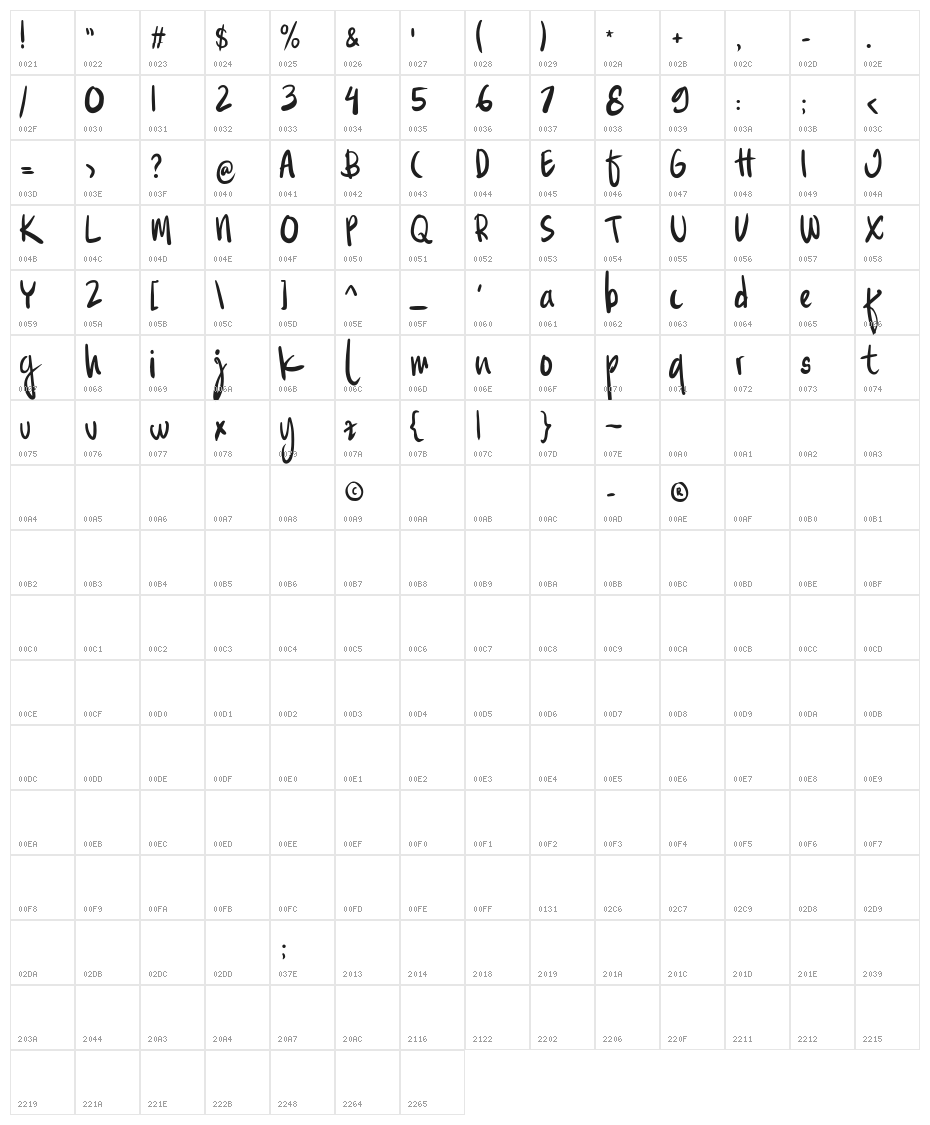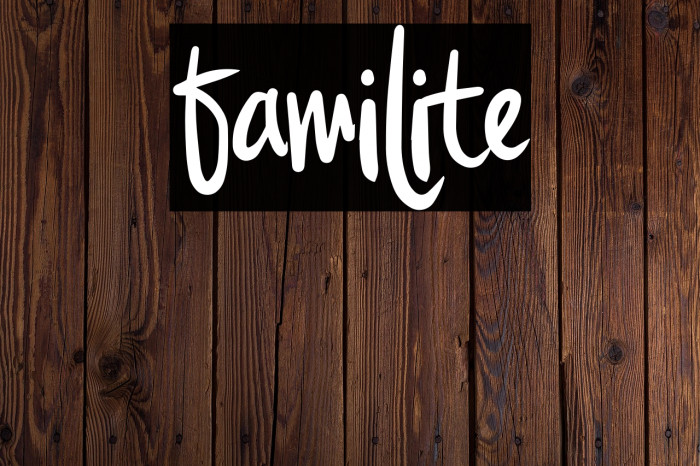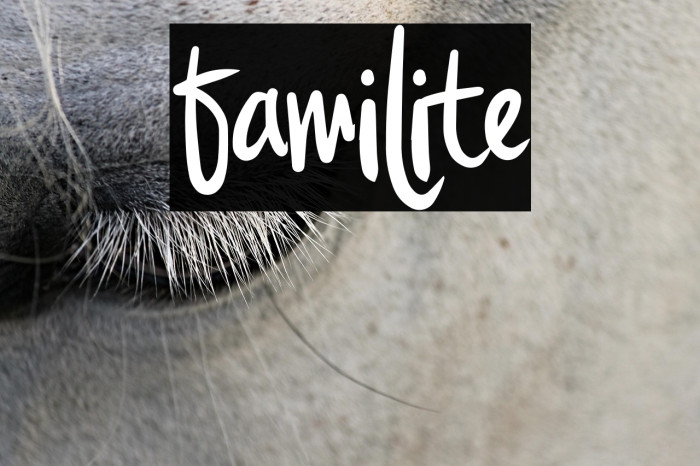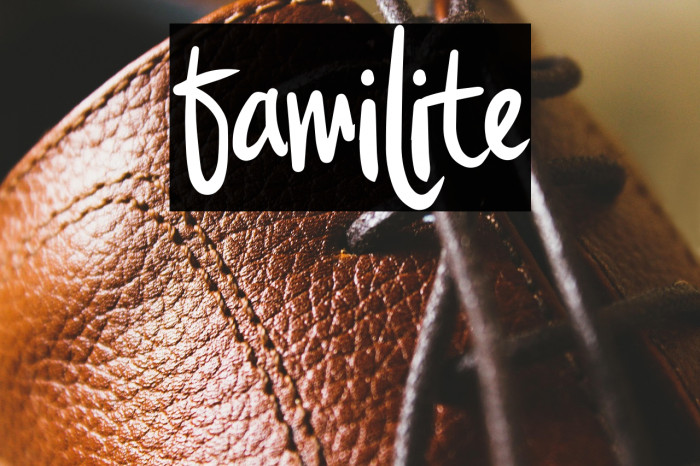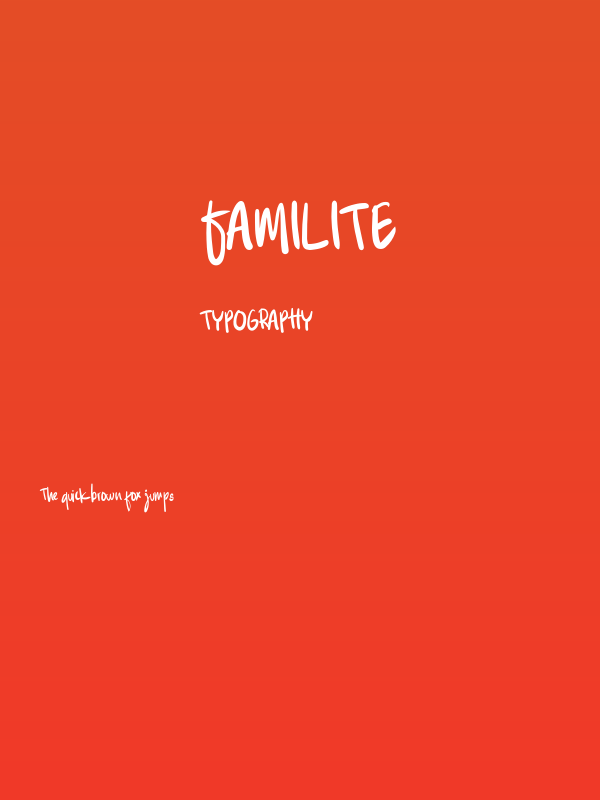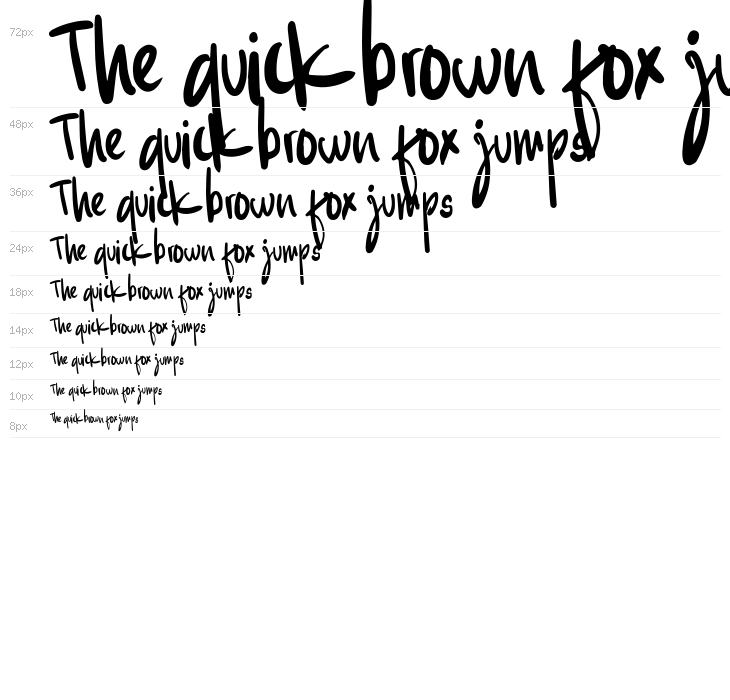
Familite Font
Familite Description
This font exudes a playful and casual handwritten style, characterized by its bold and slightly irregular strokes. The letters have a lively and energetic appearance, with a natural flow that mimics the spontaneity of handwriting. The uppercase and lowercase letters maintain a consistent style, with rounded edges and a slight slant, adding to the informal and approachable feel. The numerals and special characters are equally expressive, ensuring a cohesive look across all text elements. This font is ideal for projects that require a personal touch, such as greeting cards, invitations, or creative branding materials.
| Overall Style | Casual, Playful |
| Use Case | Headlines, Logos, Creative projects |
| Proposed Projects | Ideal for greeting cards, invitations, creative branding, and personal projects. |